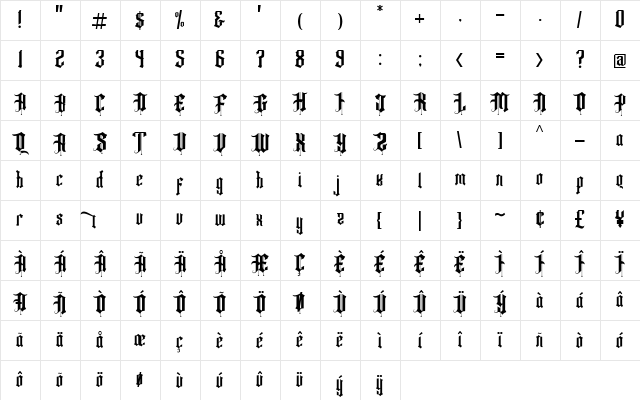
Fancy Quisley Regular
Foundry: Virgiawan Listanto
Designer: Virgiawan Listanto
Design Context for Fancy Quisley
Fancy Quisley is a composed and adaptable typeface that performs quietly and consistently across a wide range of design contexts.
Who designed the Fancy Quisley Regular font?